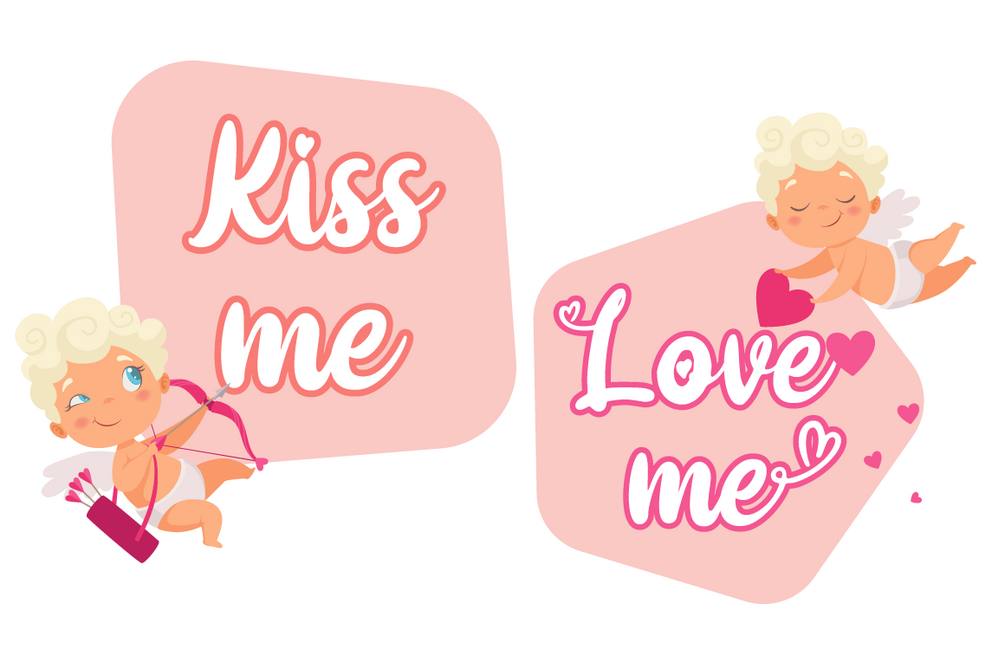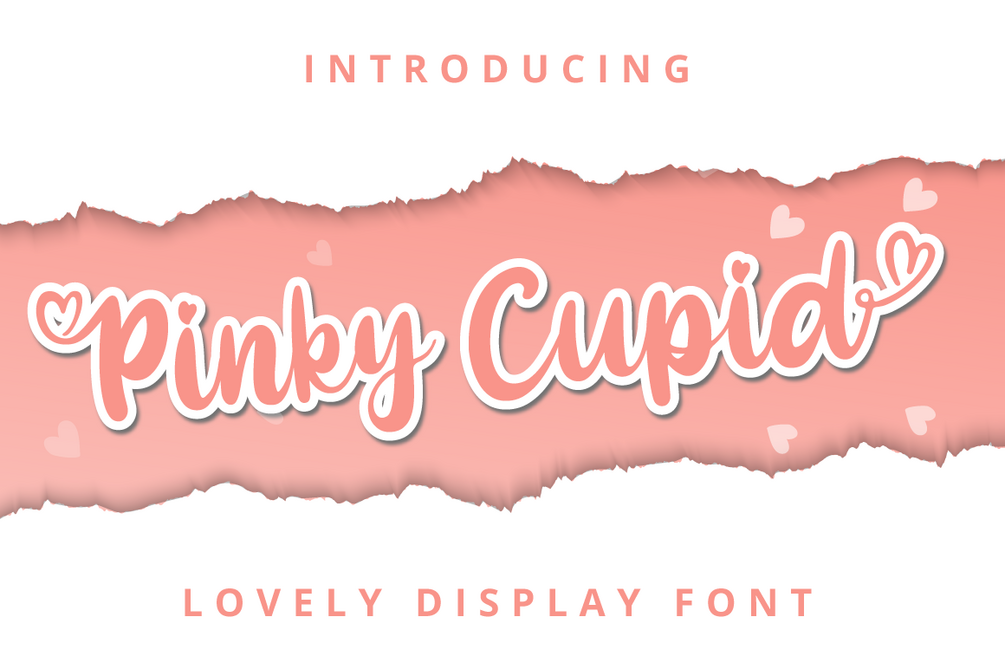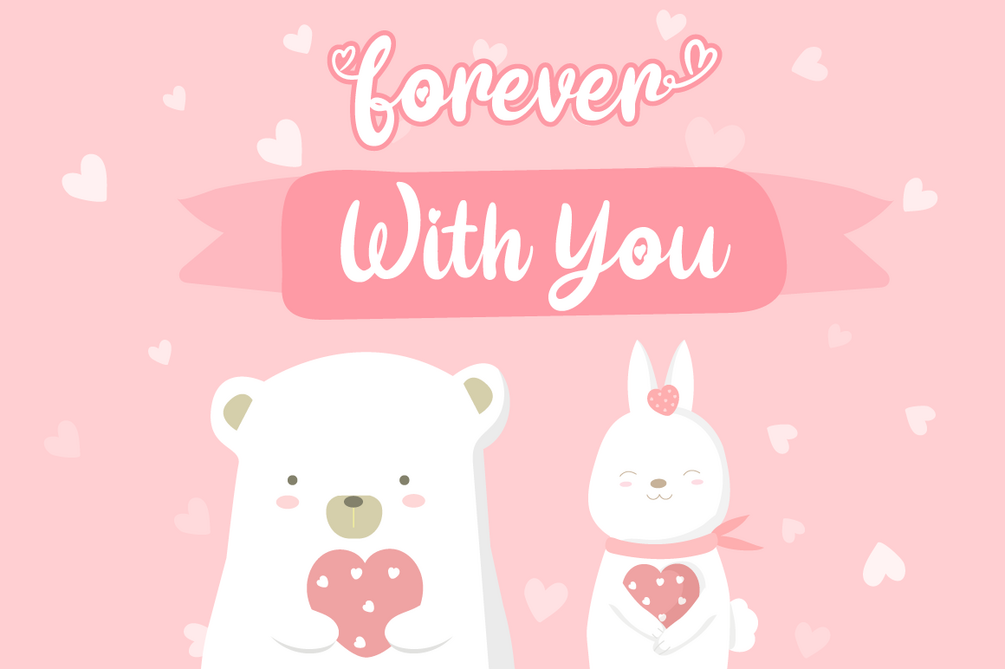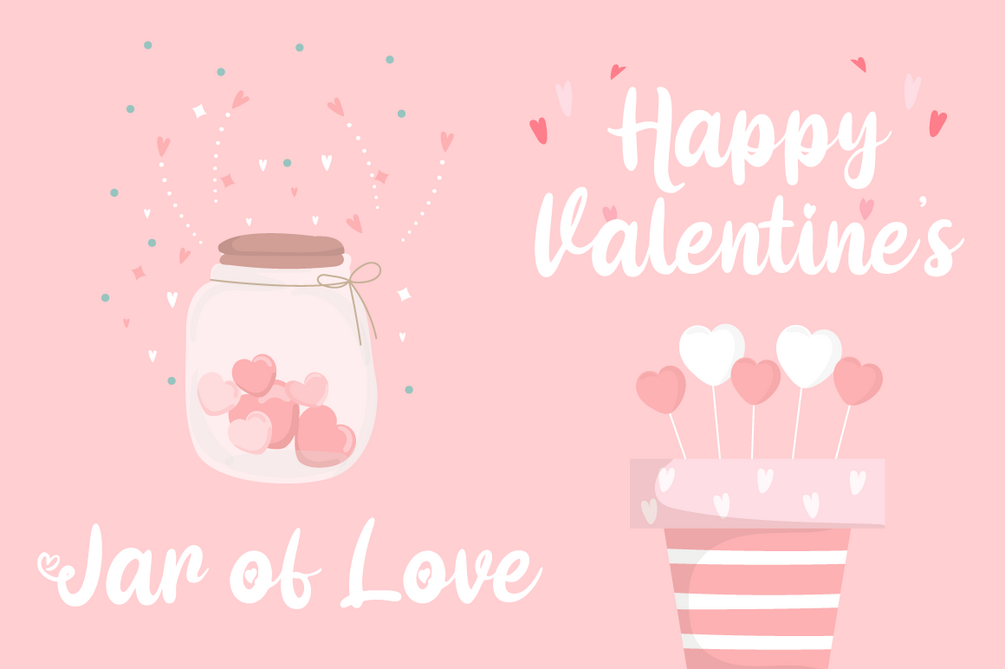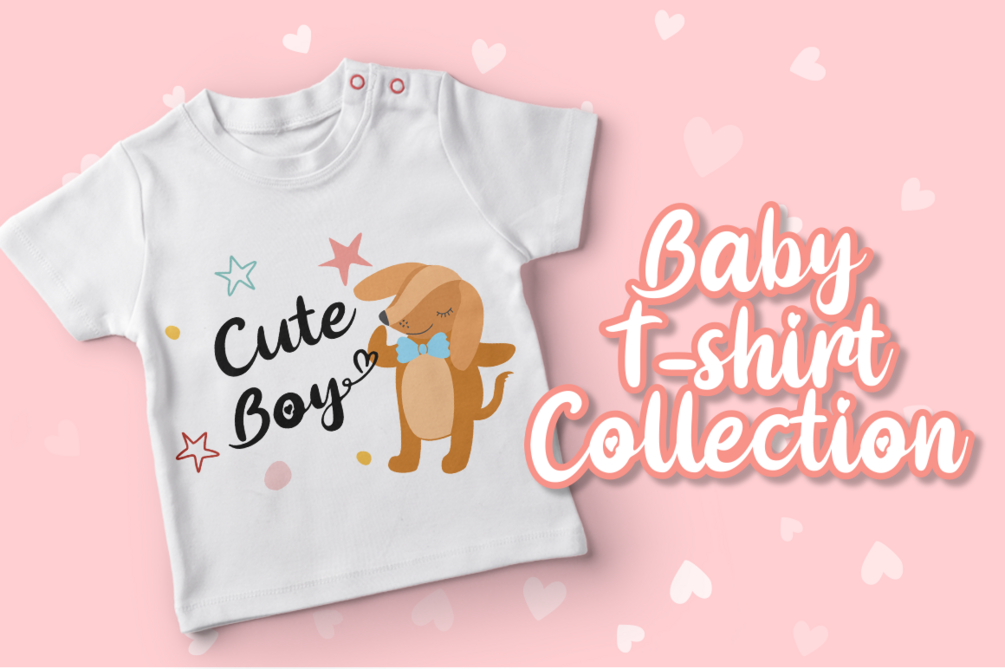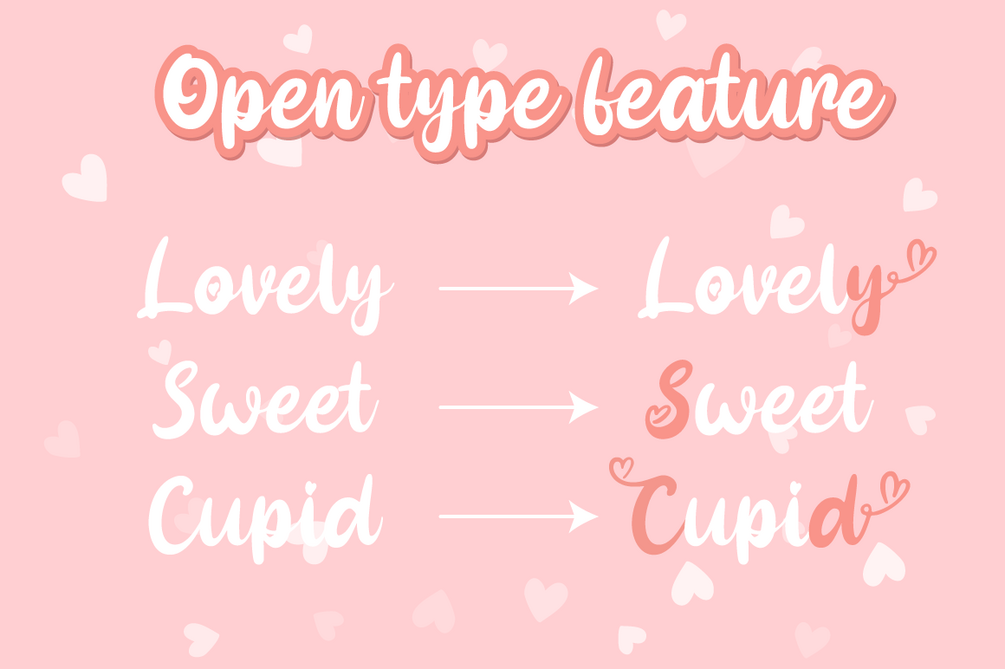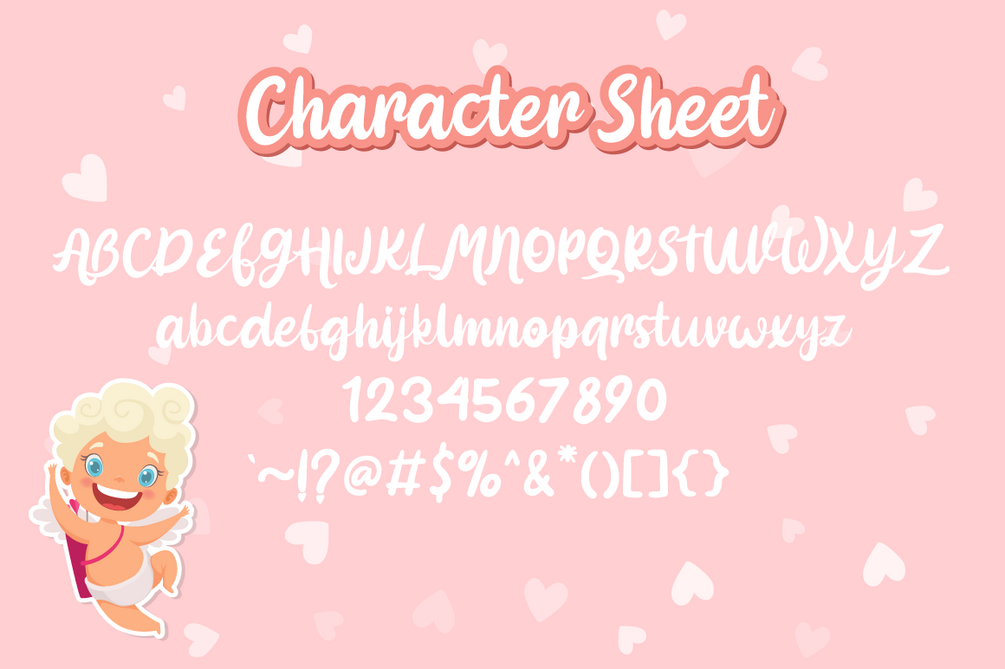
Pinky cupid - Valentine Font
Introducing Pinky cupid - Valentine Font
Pinky cupid is lovely display font, including stylistic alternates that perfect for any combination for your design.
Pinky Cupid perfectly macth for desgign with valentine theme, any product like book cover, t-shirt, branding, promotion, social media post, quotes, wedding, photography and more.
Features:
- Pinky cupid Regular
- Uppercase
- Lowercase
- Numbers & Punctuation
- Stylistic Alternates
- Multilingual Support